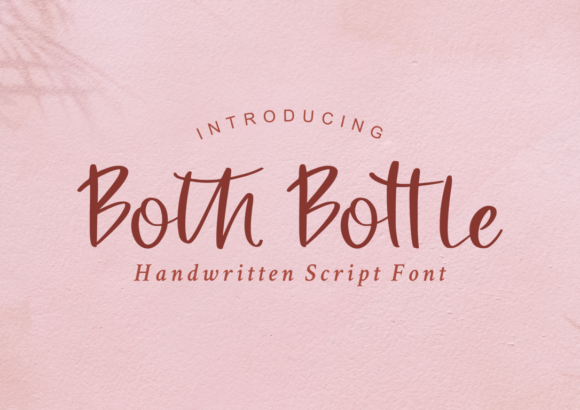
Introducing Both Bottle, the enchanting script font that will captivate your audience on social media platforms. Crafted by the renowned loklike, Both Bottle's graceful curves and delicate strokes evoke a sense of timeless beauty, perfetta for adding a touch of sophistication and charm to your digital creations.
Unleash your creativity with Both Bottle, the ultimate font for crafting captivating captions, enchanting stories, and eye-catching visuals that will make your social media presence stand apart. This script font's elegant lines lend themselves beautifully to a wide range of social media content, from personal posts and heartfelt messages to captivating marketing campaigns and influential branding initiatives.
Whether you're a seasoned social media maven or just starting to explore the vast digital landscape, Both Bottle will become your go-to tool for creating content that sparks joy, inspires connection, and leaves a lasting impression. So why settle for ordinary fonts when you can elevate your social media game with Both Bottle?
Join the ranks of savvy social media connoisseurs who understand the power of captivating typography. Embrace Both Bottle's allure, and watch as your social media presence transforms into a symphony of visual delight that captivates your audience and propels your brand to new heights.